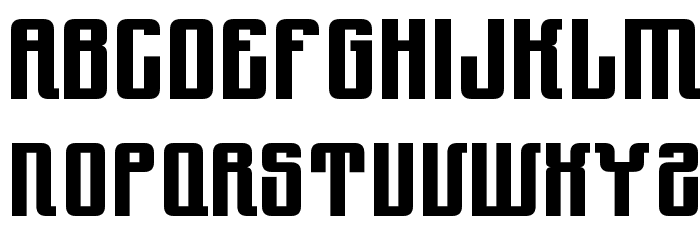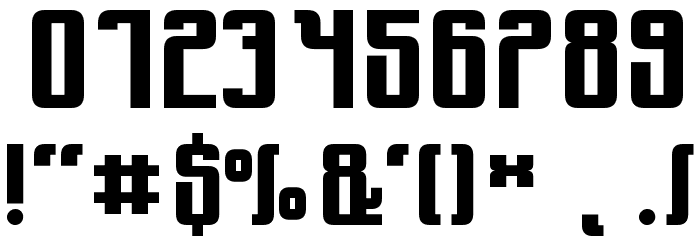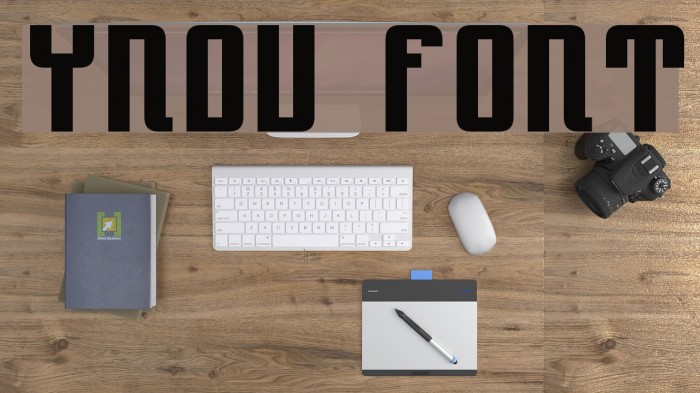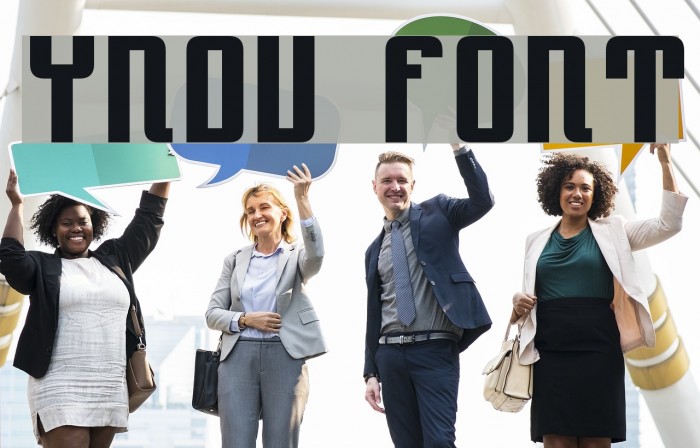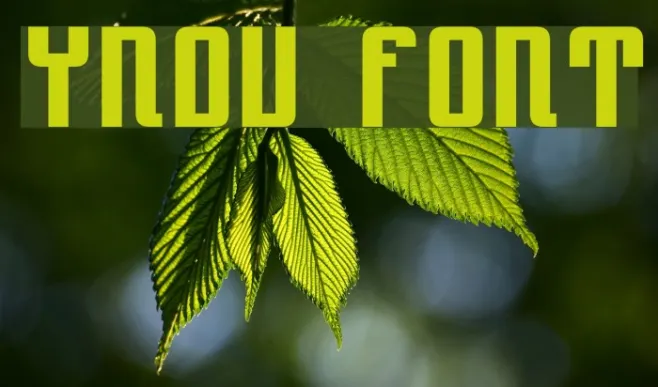
Yndu Font
This font features a bold and geometric design with a strong presence. The characters are uniformly thick, giving it a robust and impactful appearance. The uppercase letters are particularly striking, with a squared-off style that emphasizes their boldness. The lowercase letters maintain the same weight and geometric style, ensuring consistency across all text. Numbers and special characters are designed to match the overall aesthetic, making them easily legible and visually cohesive. The font's design is modern and assertive, suitable for making a statement in any design project.
A bold, geometric font with a strong, modern presence.
- Proposed Projects: Ideal for branding, posters, headlines, and any design requiring a bold statement.